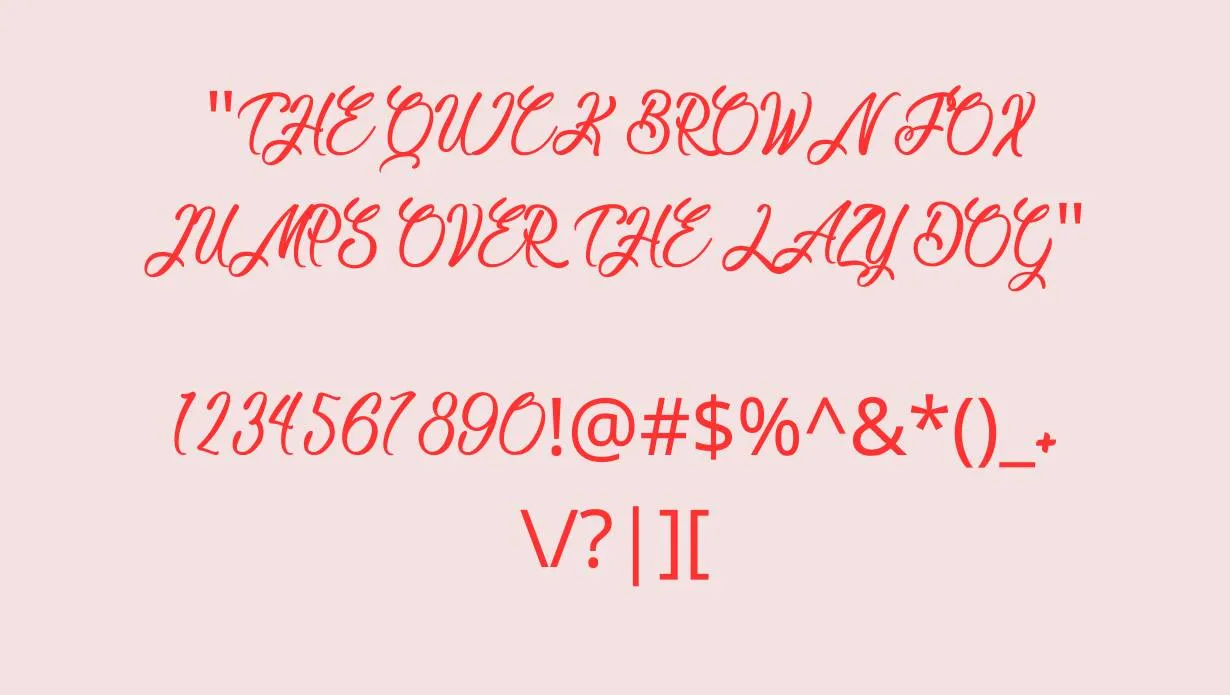
Congratulation Folding Font is a playful and decorative typeface known for its unique design. It’s frequently used in greeting cards, celebratory banners, and festive branding.
The font’s creative and folding letterforms add an element of fun and celebration to your design work. When the Lucida Calligraphy Font is paired with this typeface, it becomes possible to create captivating displays.
| Name | Congratulation Folding Font |
| Designer | Octotype |